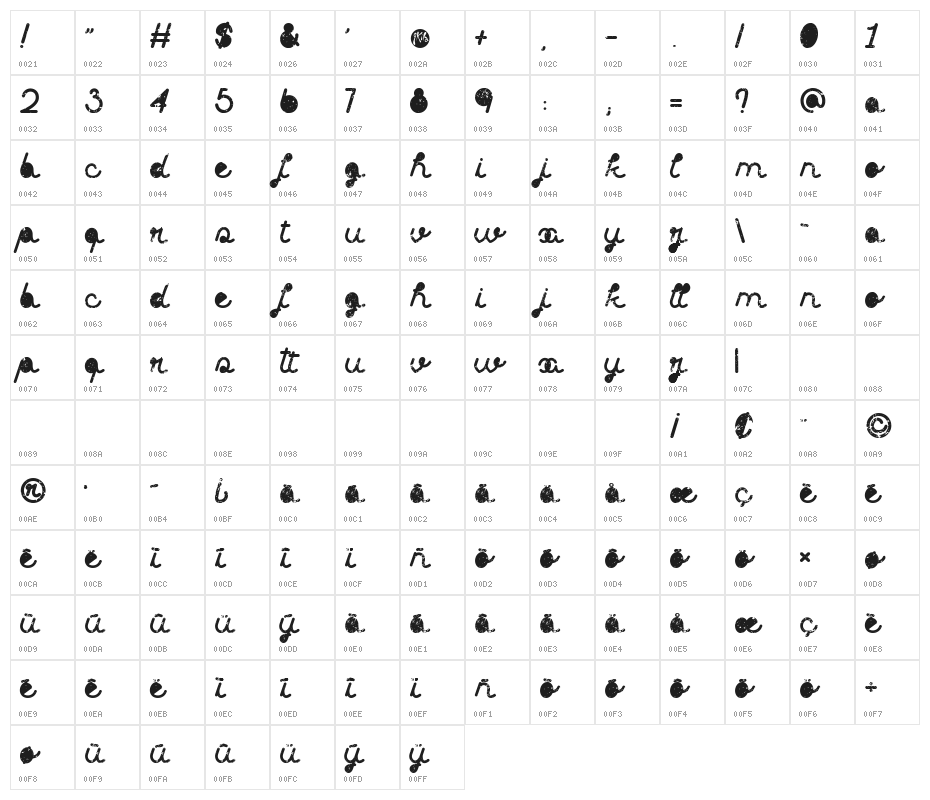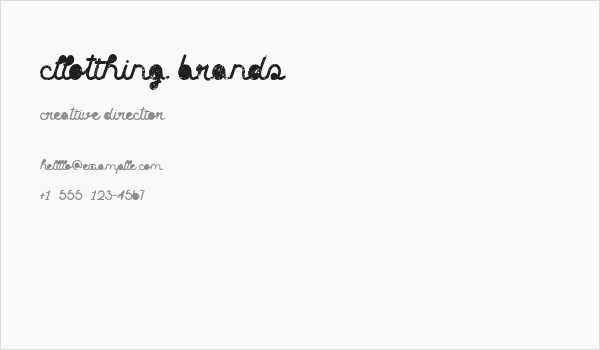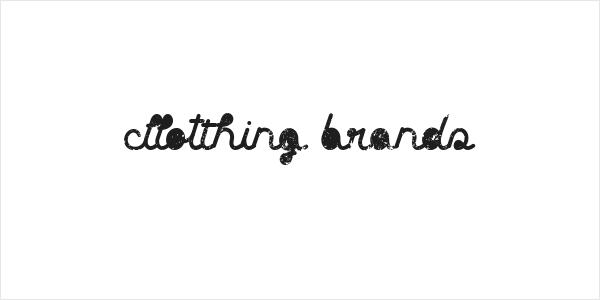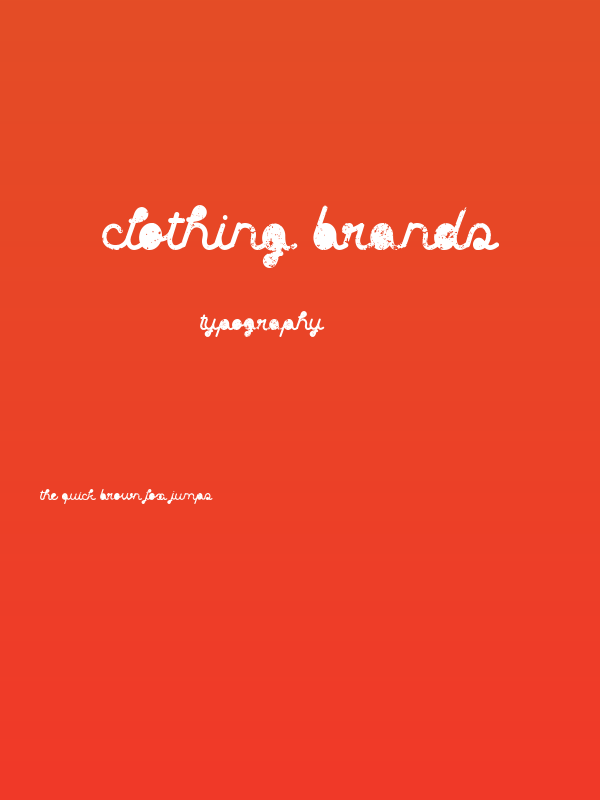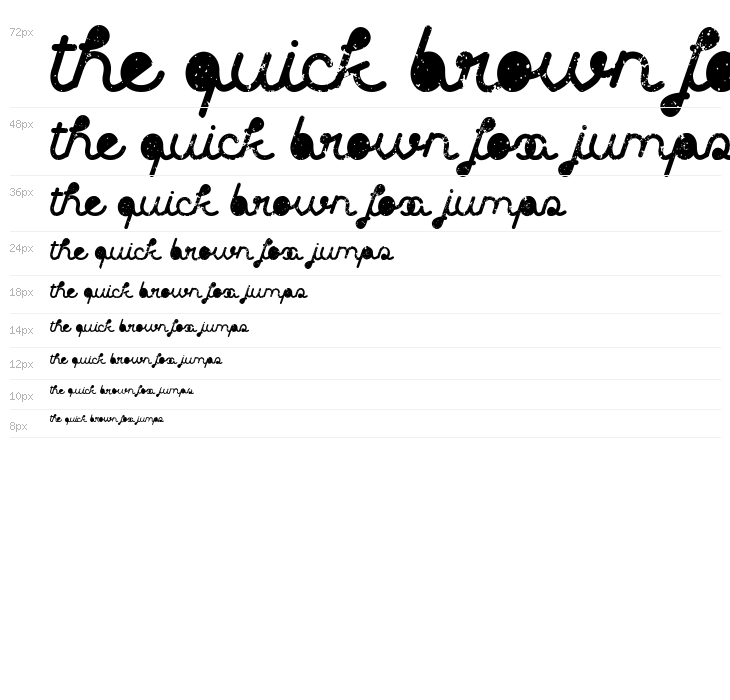
Clothing brands Font
Clothing brands Description
This font features a distressed, grunge style with a handwritten script appearance. The letters are connected, giving it a cursive flow, while the texture adds a rugged, worn-out look. The characters are bold and have a consistent thickness, which enhances readability despite the textured effect. The numbers and special characters follow the same style, maintaining uniformity across the set. This font is ideal for projects that require a casual, edgy, or vintage aesthetic, such as branding for clothing lines, posters, or album covers.
| Use Case | Logos, Posters, Album covers |
| Proposed Projects | Ideal for clothing brand logos, edgy posters, album covers, or any project needing a vintage, rugged look. |